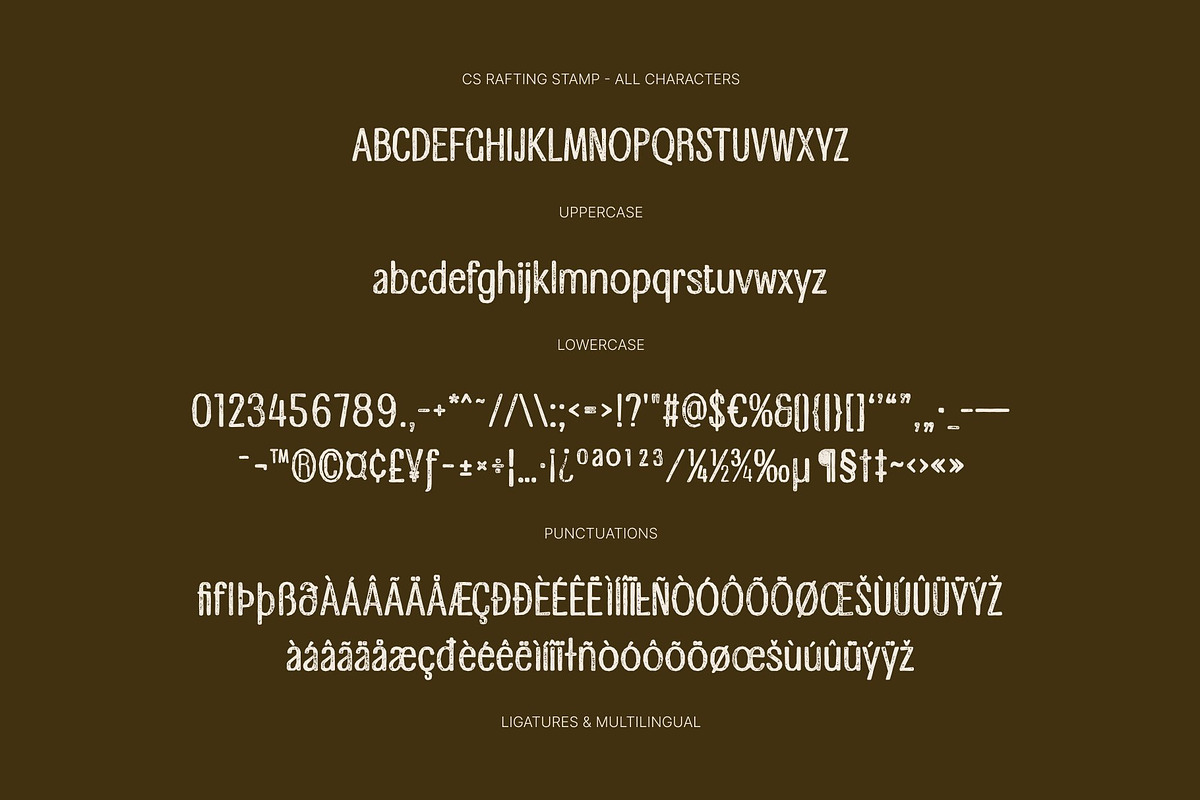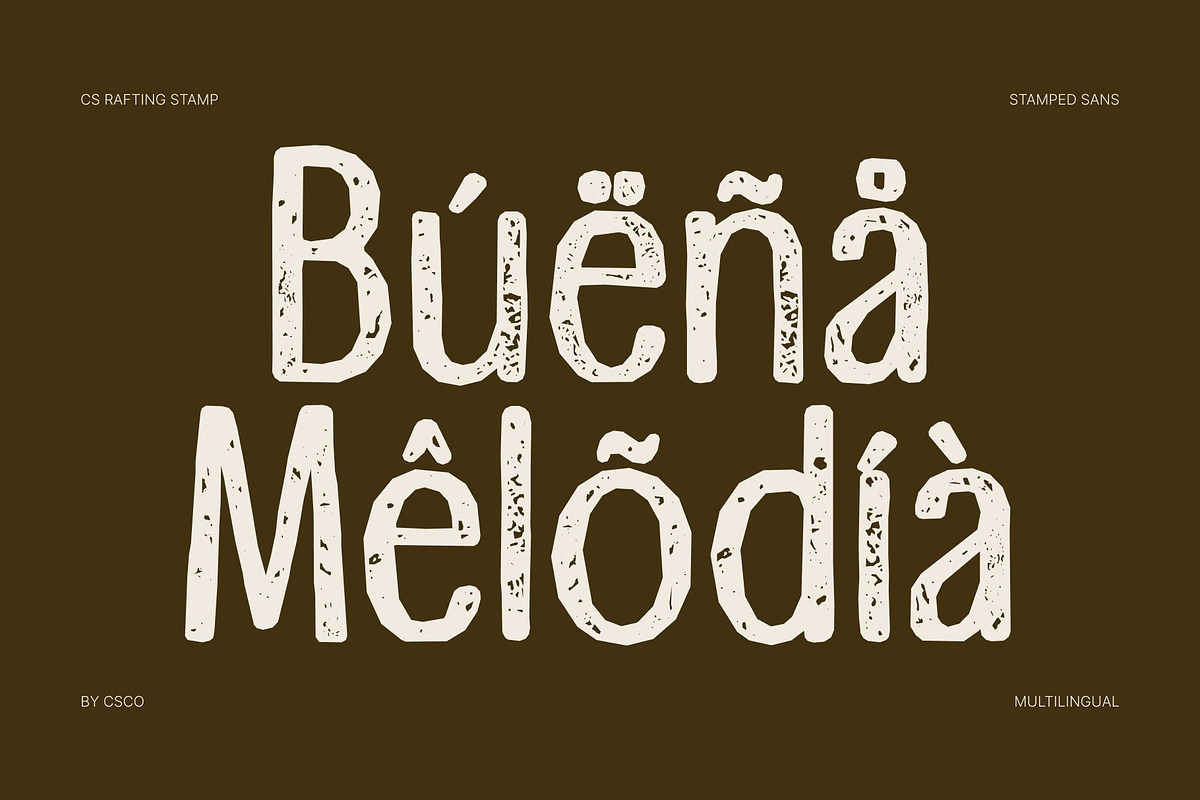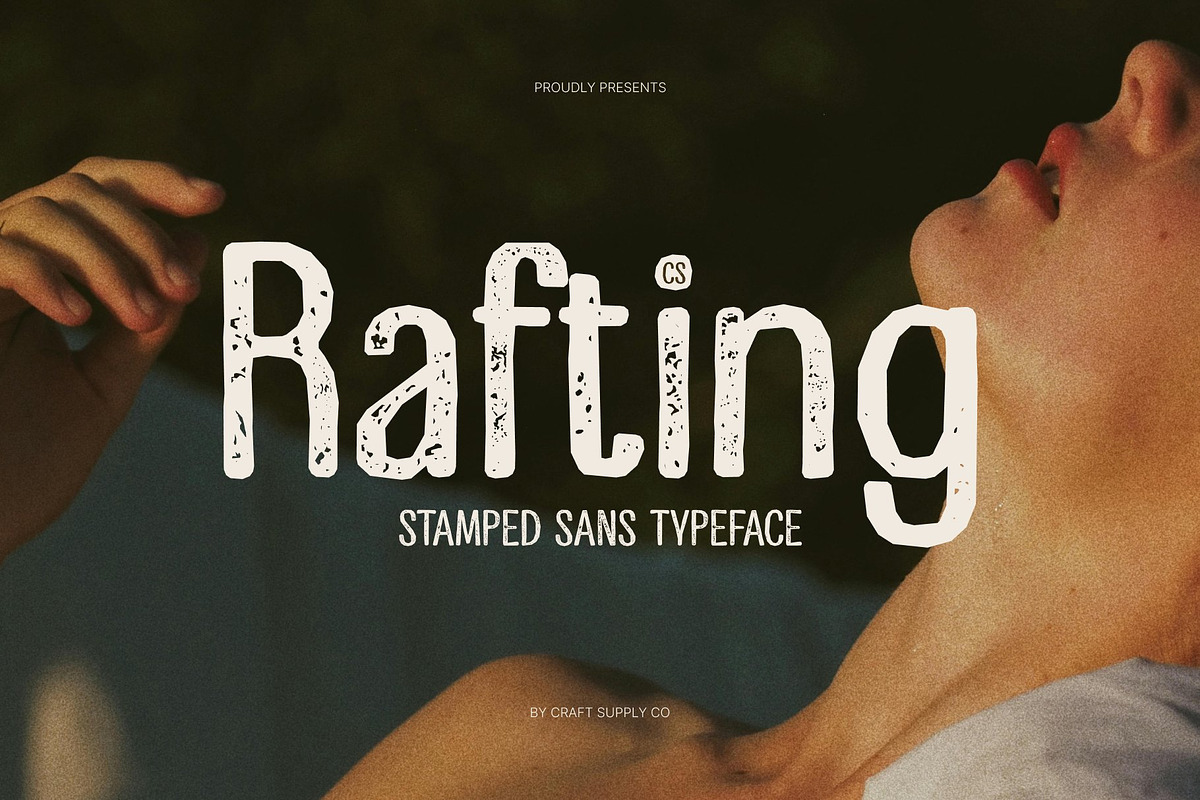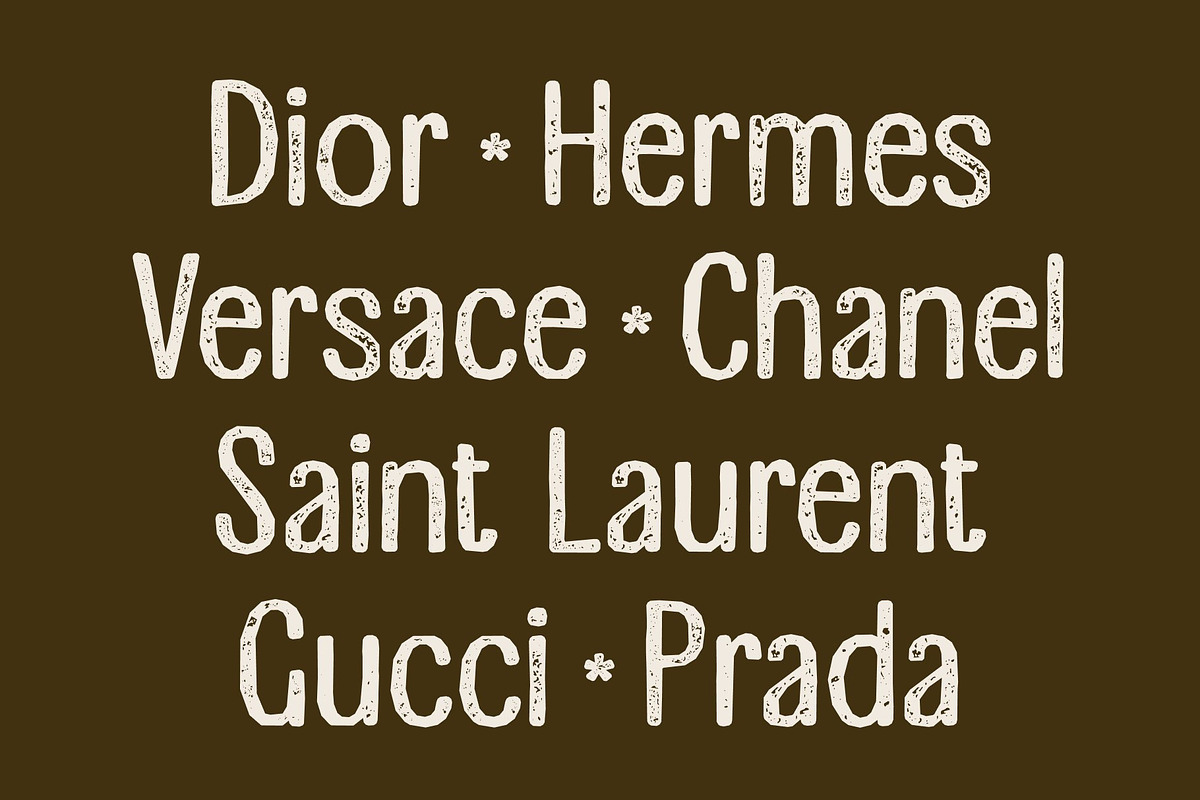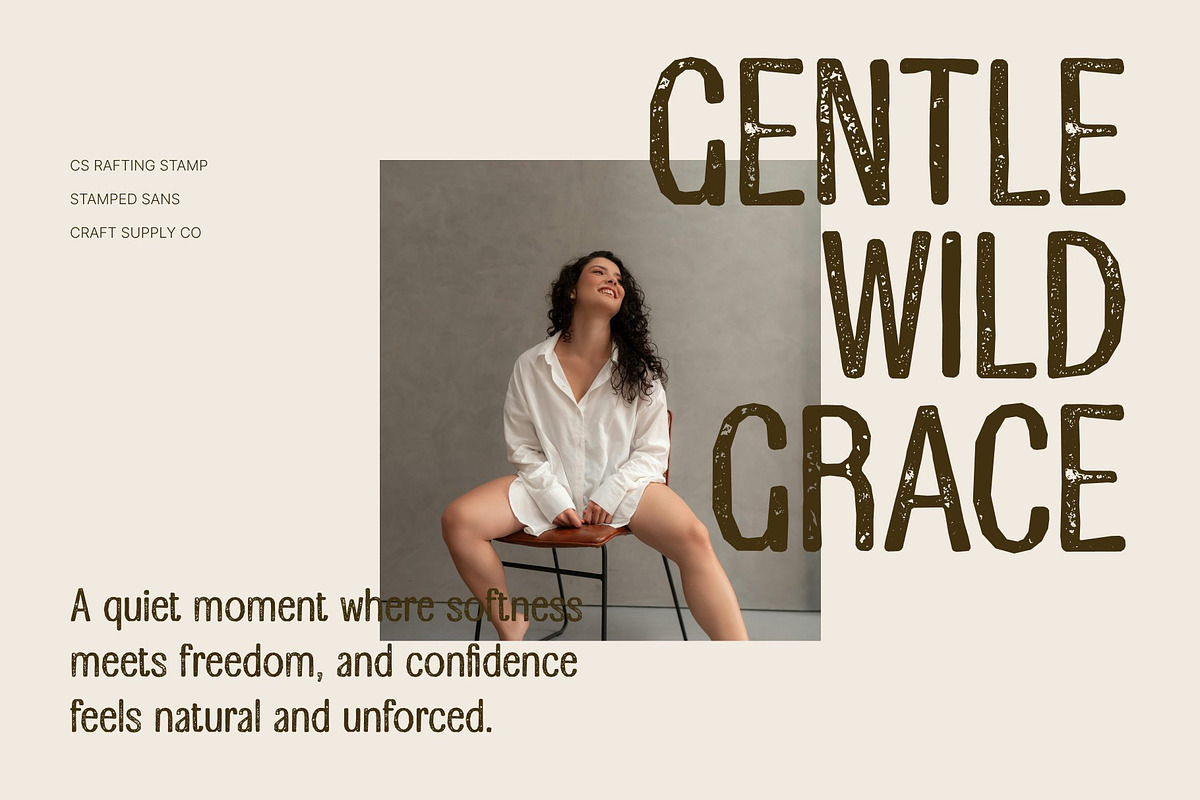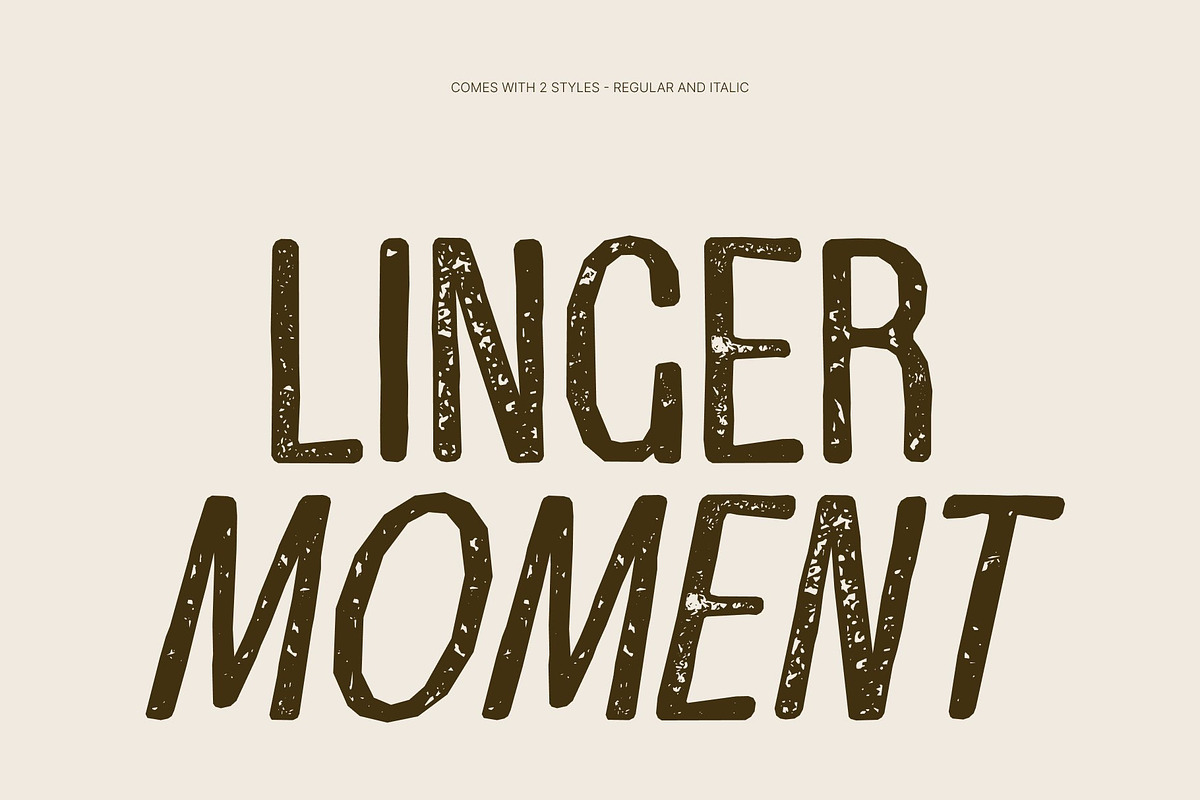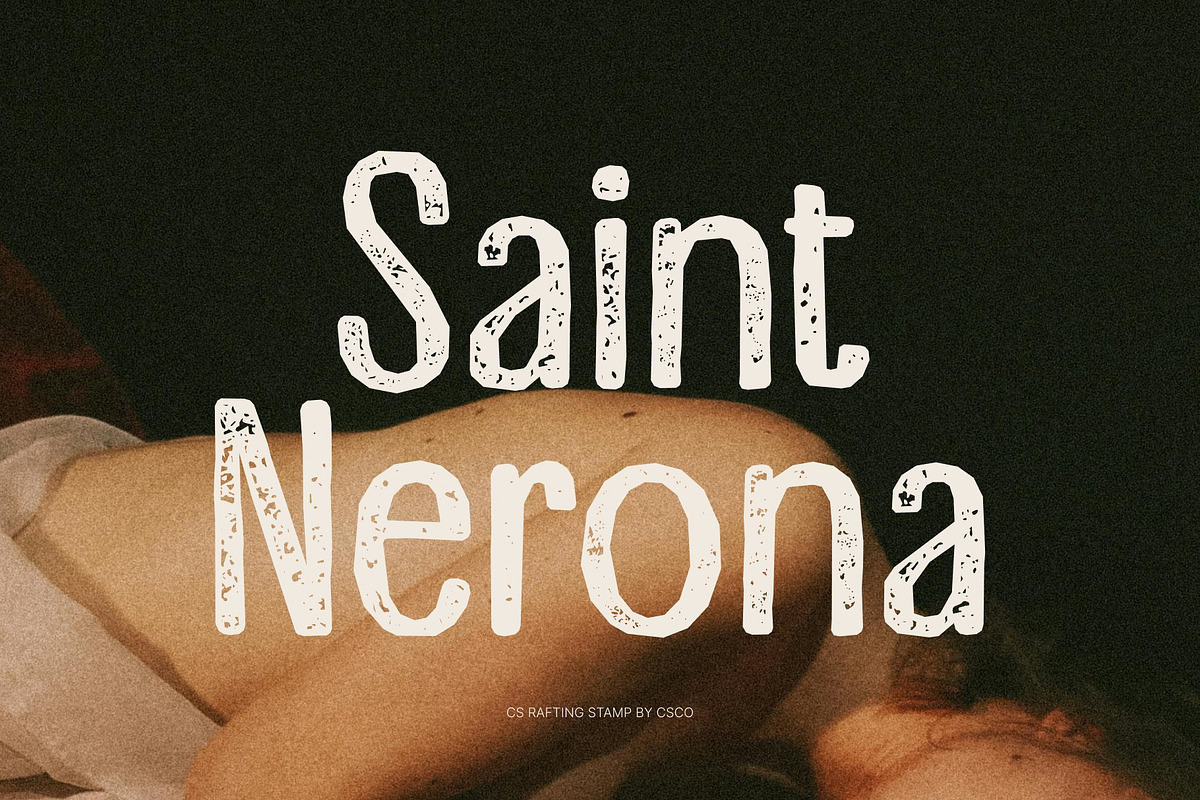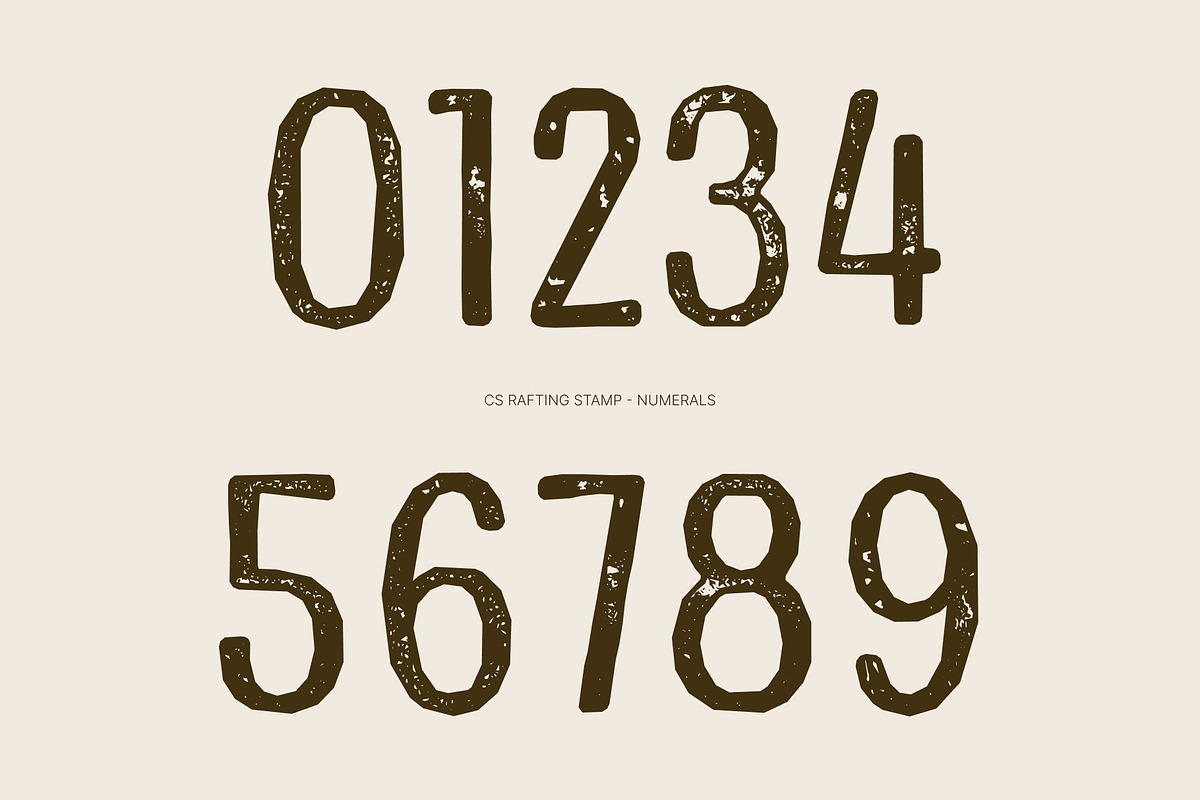
CS Rafting Stamp
CS Rafting Stamp – Modern Sans Serif Font: Where Contemporary Elegance Meets Vintage Craftsmanship
Confident Elongated Forms with Premium Character This is a modern sans serif font designed with confident elongated letterforms that create a sleek, refined, and authoritative visual presence. Its balanced proportions and contemporary structure deliver a sophisticated atmosphere that feels premium, stylish, and highly professional. Every character radiates clarity and elegance while maintaining a bold modern personality.
Modern Simplicity with Artisanal Appeal This font offers a typographic identity that feels both contemporary and handcrafted. The elongated forms enhance its luxurious appearance while preserving readability and versatility, making it ideal for creative projects that seek a balance between refinement and authenticity.
Stamp Texture with Vintage Artistic Character This font introduces a rough handcrafted finish inspired by traditional print techniques. The textured detailing adds vintage character, artistic depth, and authentic old-design charm to every letter, enriching the clean modern forms with warmth and expressive individuality.
Perfect for Packaging, Editorials, and Premium Branding This is perfect for high-end artisanal packaging, luxury branding, magazine headers, editorial covers, posters, labels, and sophisticated promotional materials. Its elongated forms and textured detailing make it ideal for logos, product packaging, fashion visuals, and visual identities that seek a premium yet raw aesthetic.
CS Rafting Stamp Regular
CS Rafting Stamp Italic